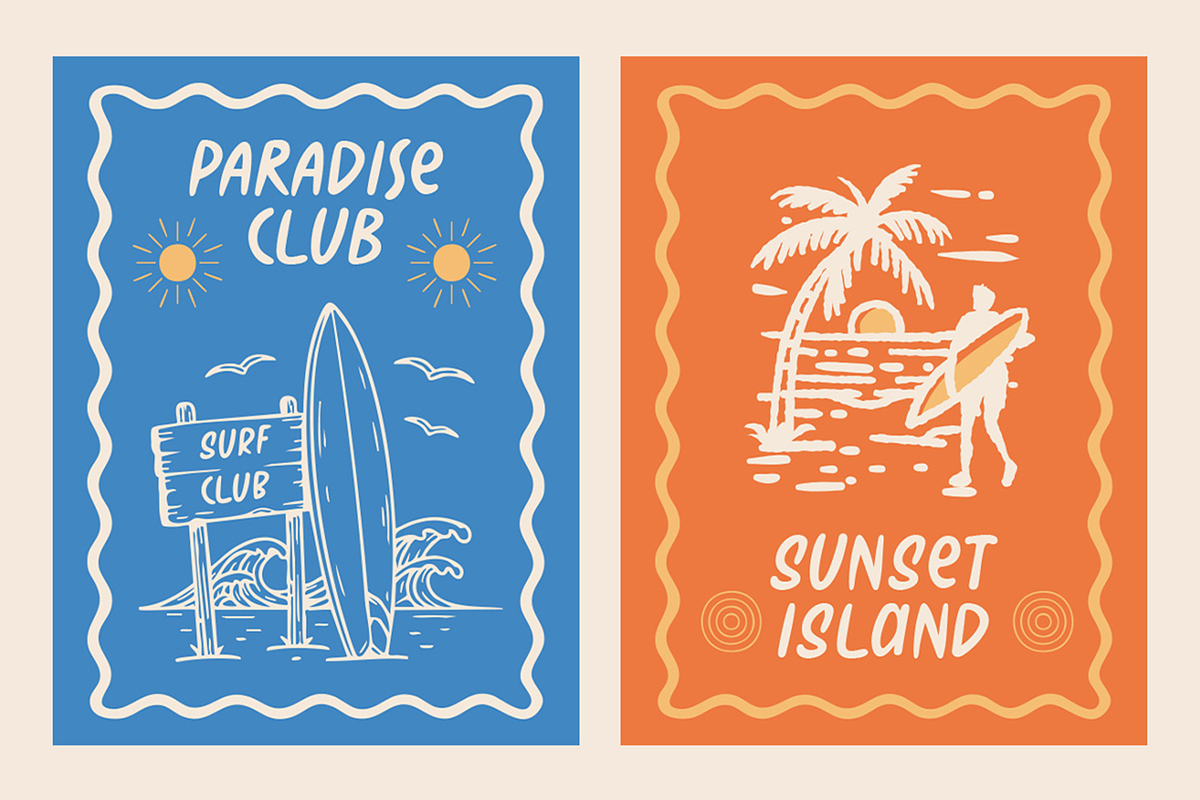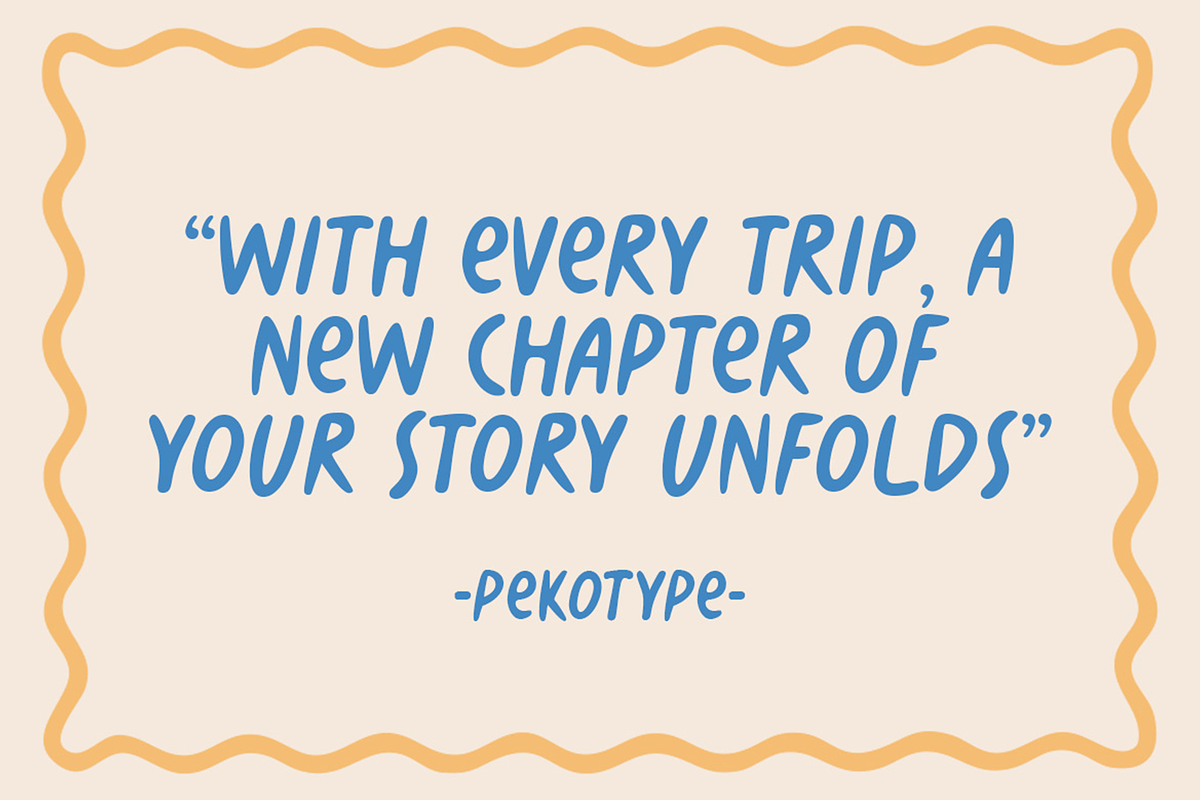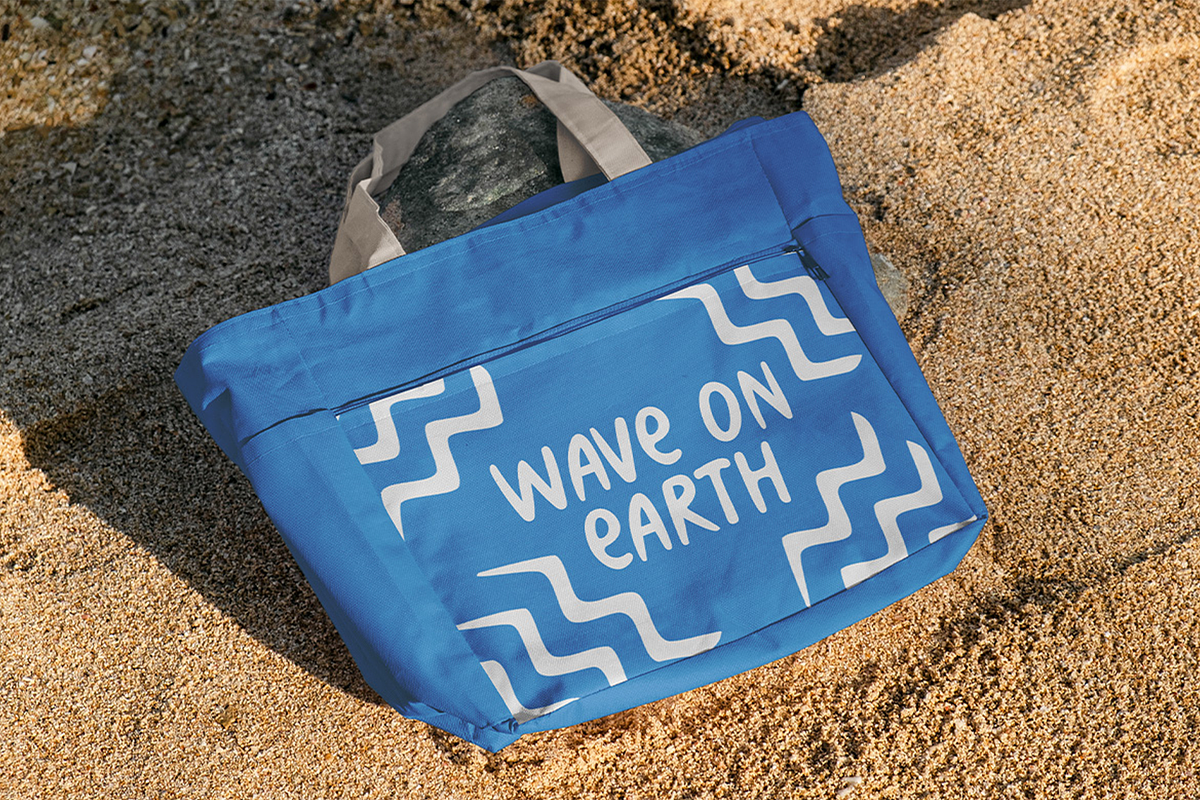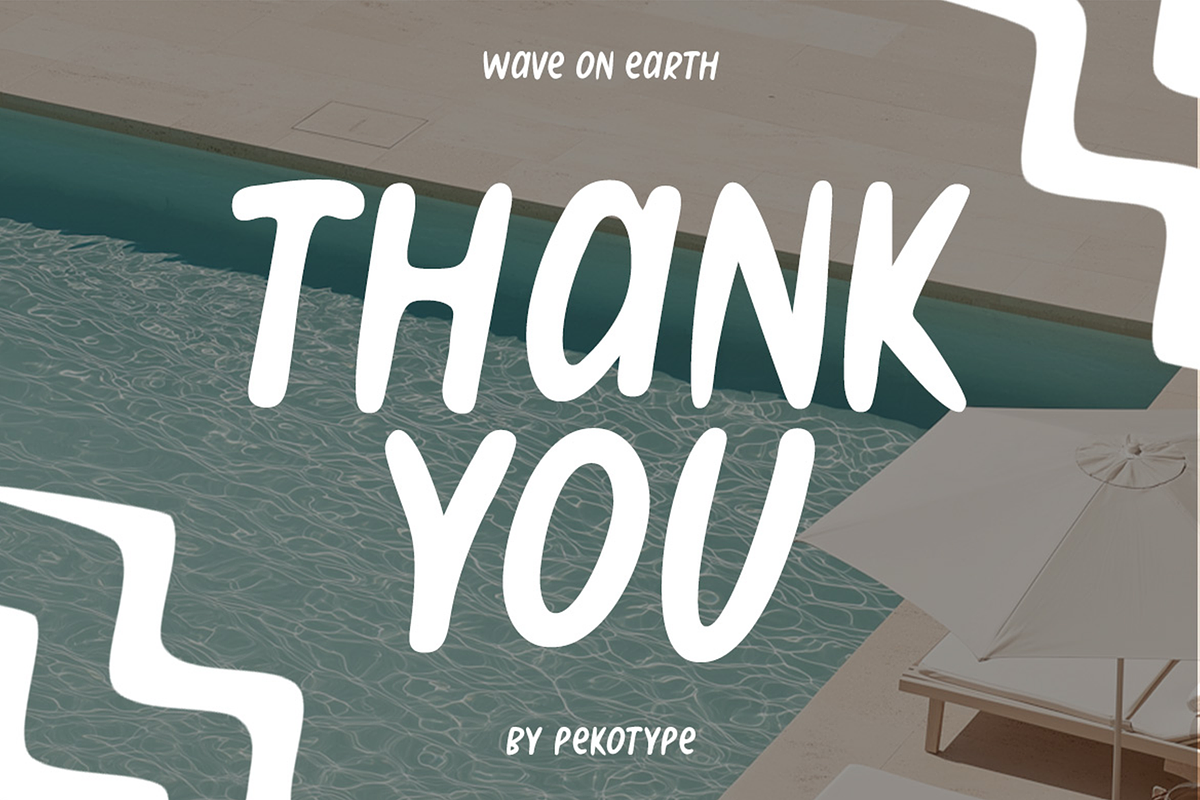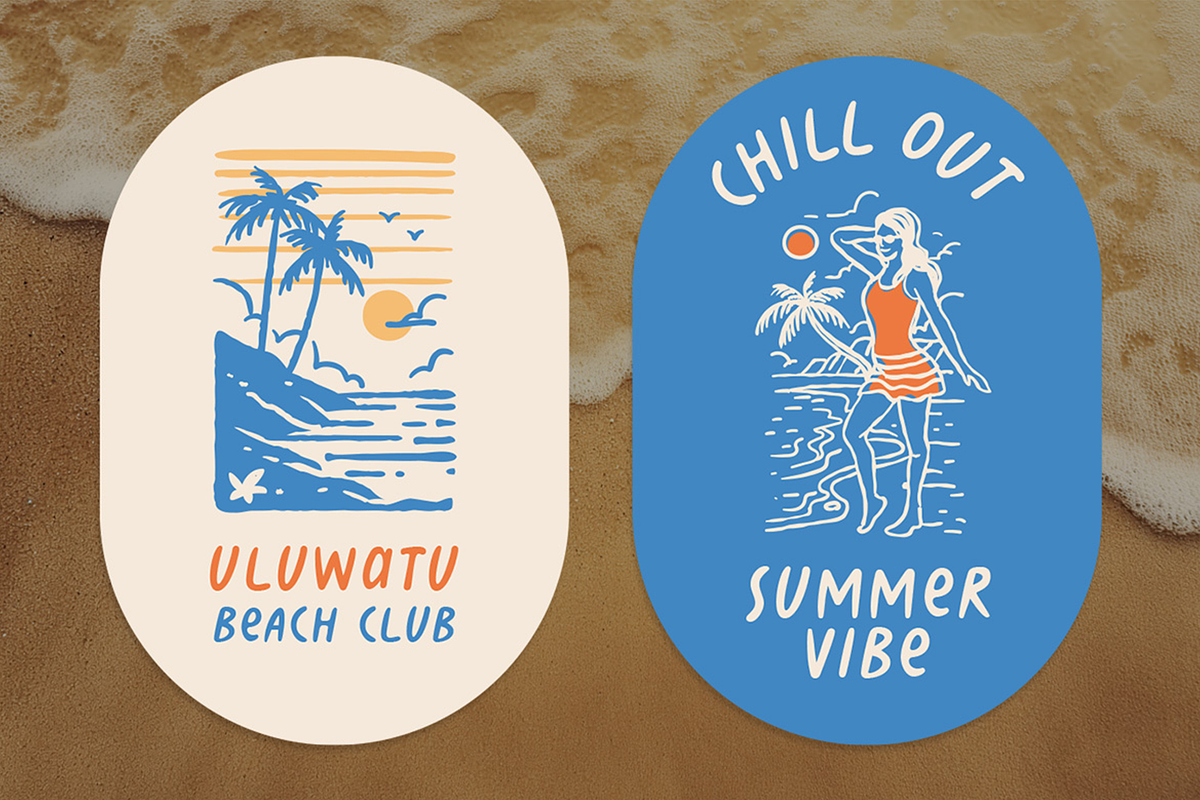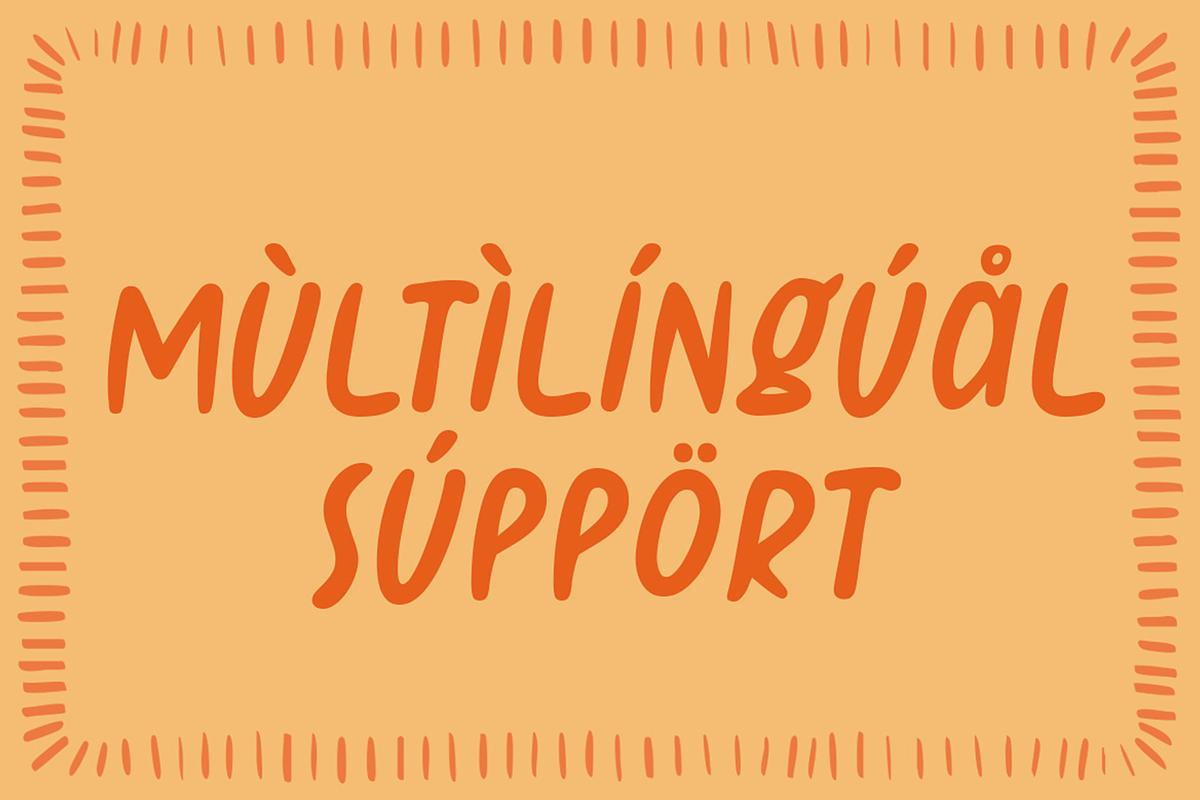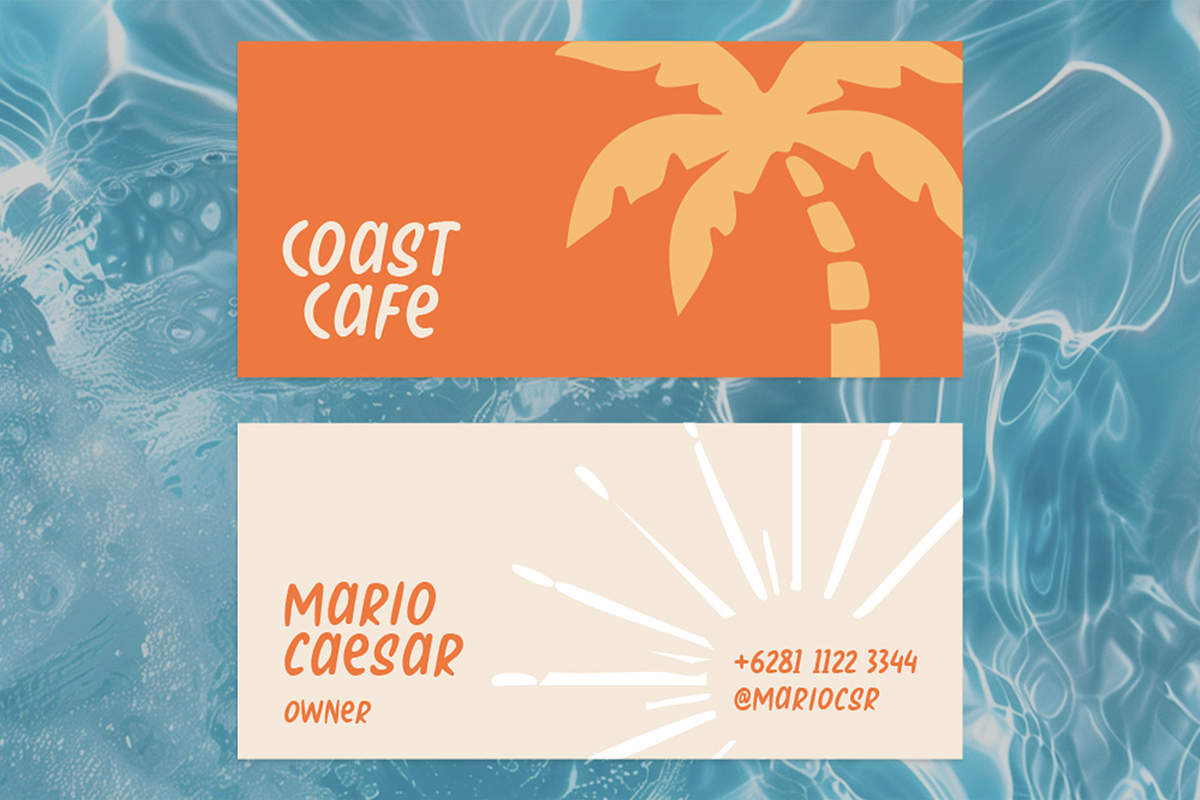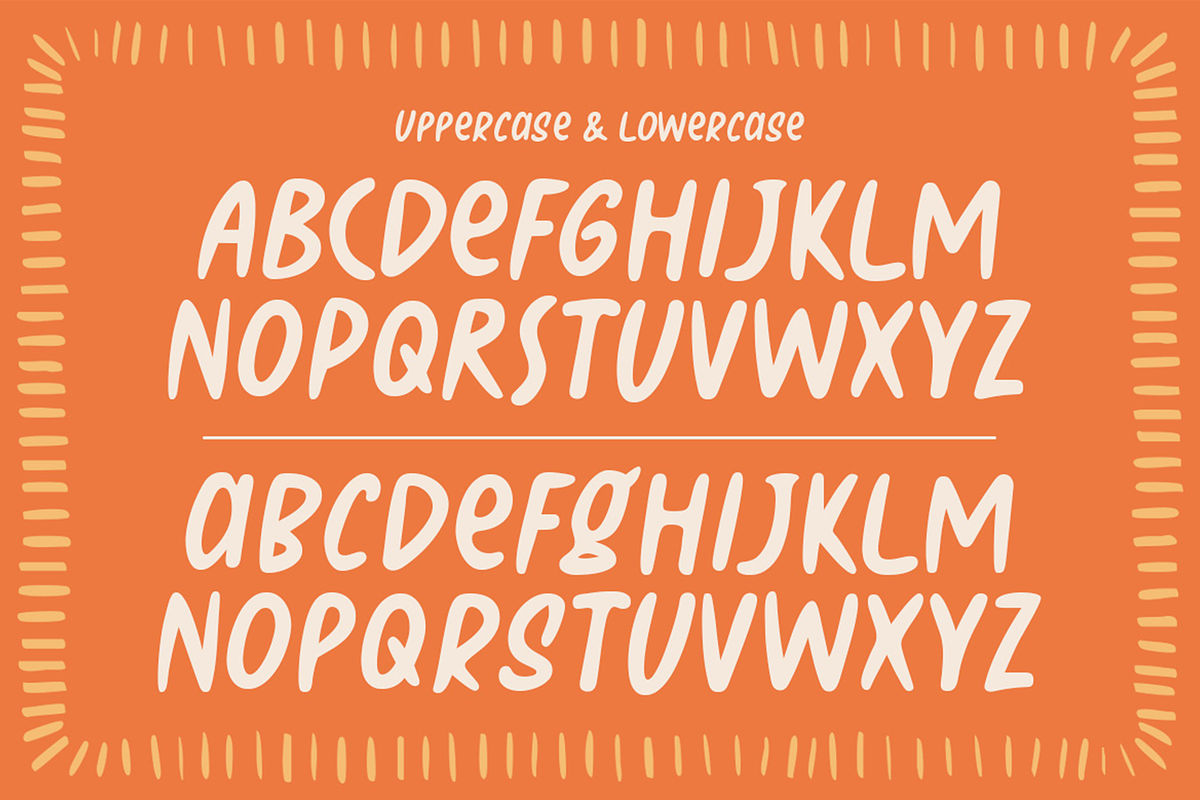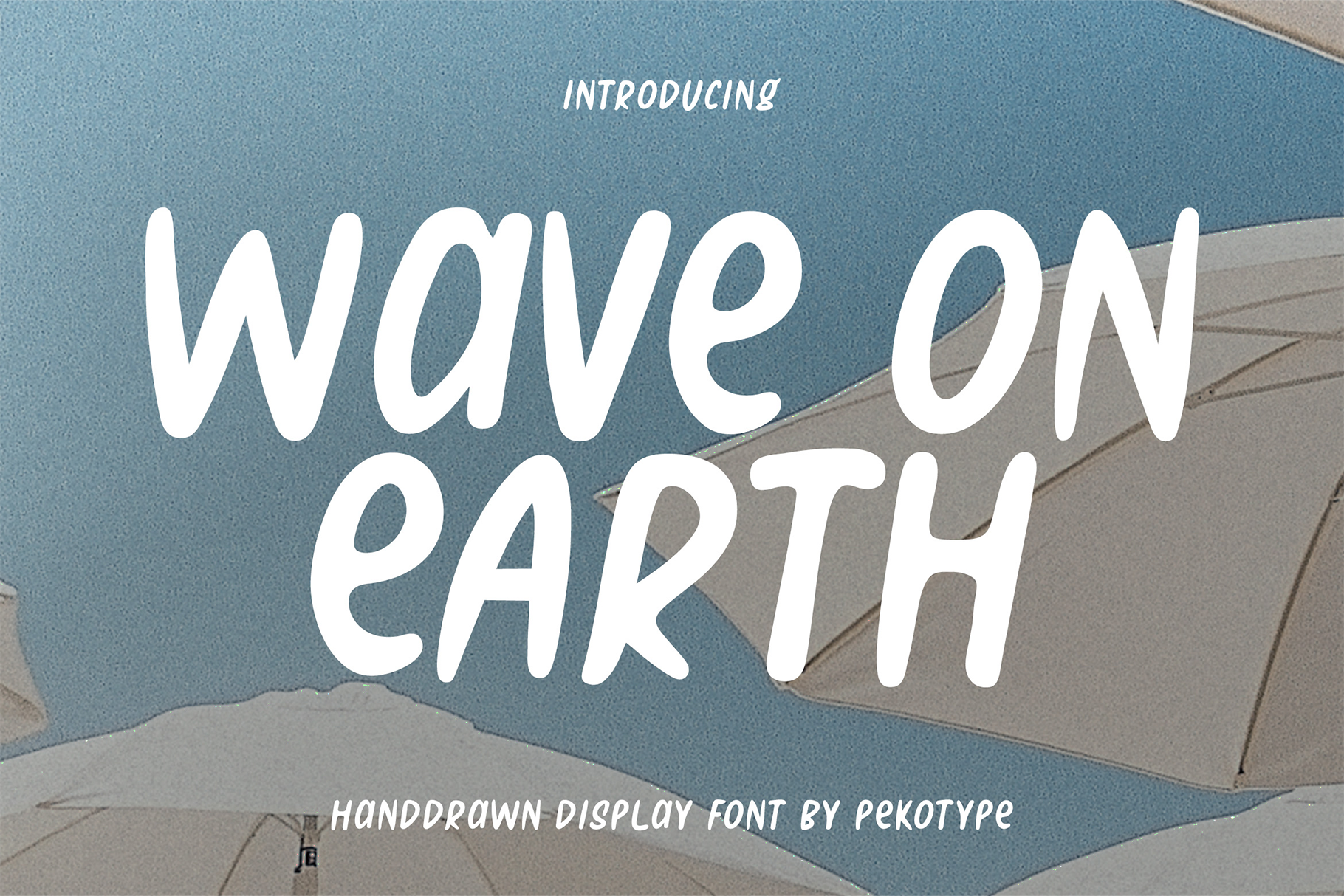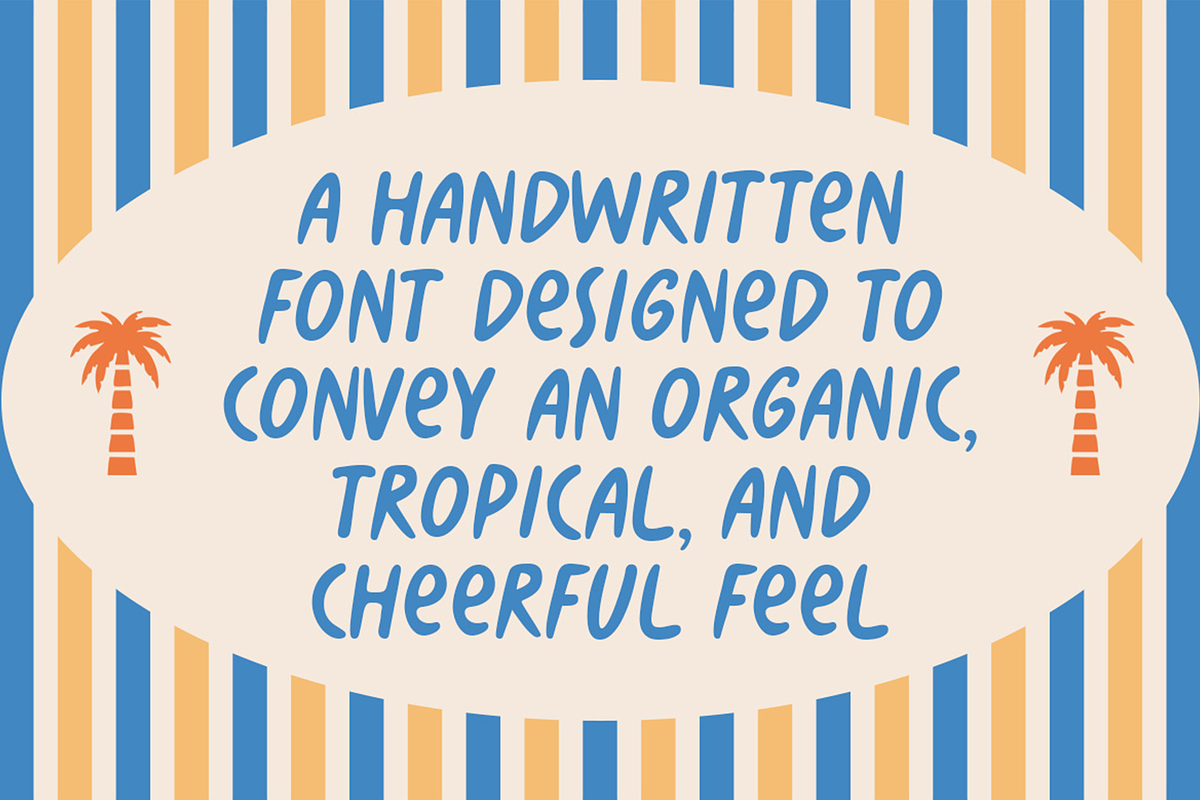
Wave on Earth Beach Handwritten Font
WAVE ON EARTH is a relaxed handwritten display font inspired by sunny beaches, ocean waves, and carefree summer days. Its natural strokes and friendly shapes create a warm, casual look that feels personal, fun, and easygoing.
Perfect for beach-themed branding, travel promotions, café menus, resort identities, packaging, social media posts, postcards, logos, quotes, and lifestyle projects. Whether you're creating tropical designs or summer-inspired visuals, WAVE ON EARTH brings a fresh and cheerful touch to your work.
Number, Symbol, & Punctuation